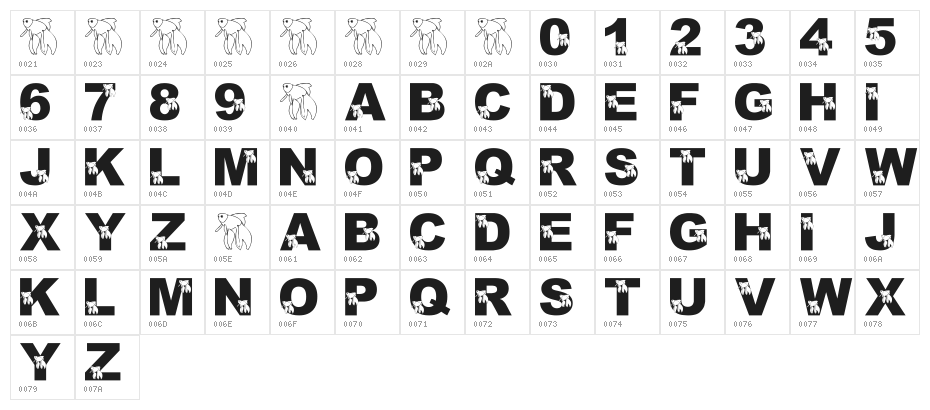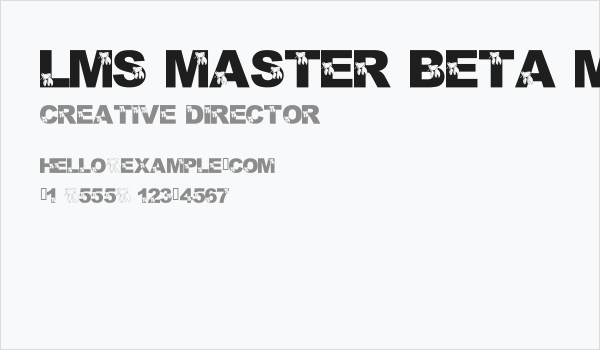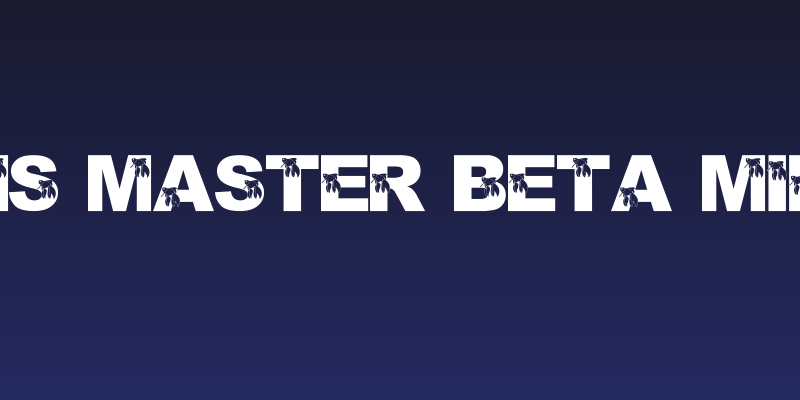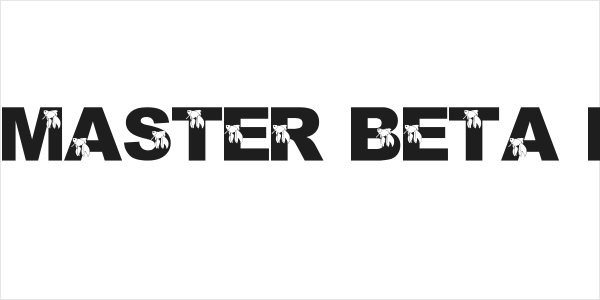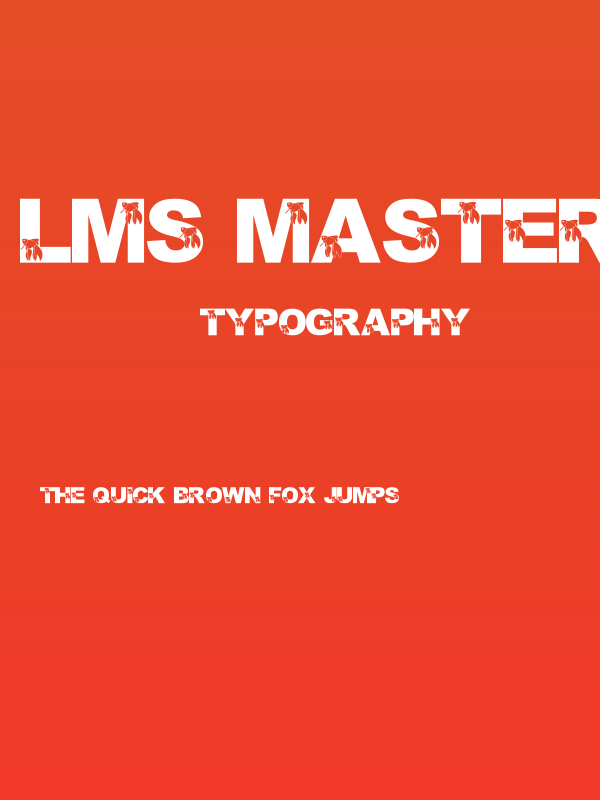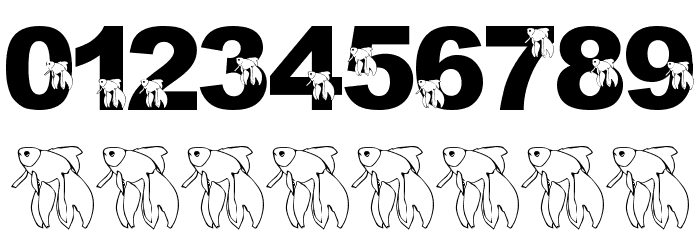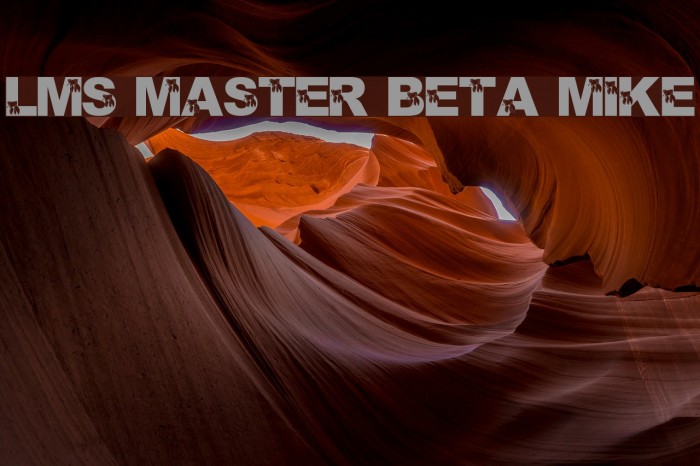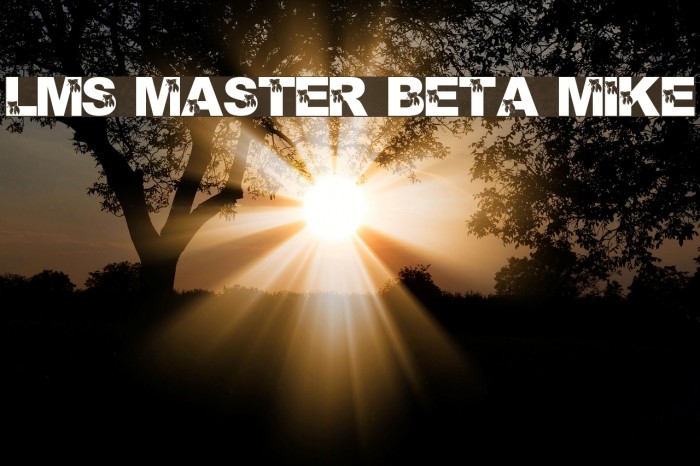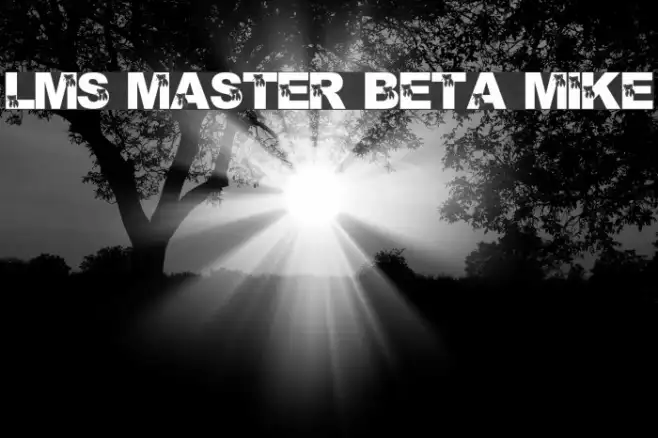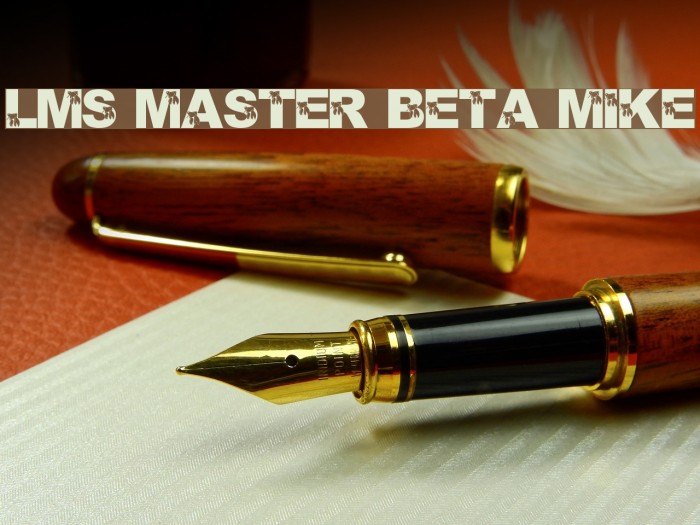
LMS Master Beta Mike Font
LMS Master Beta Mike Description
This font is a bold and playful decorative style featuring a unique design element where each character is integrated with a fish graphic. The letters and numbers are solid and bold, providing a strong visual impact. The fish motif adds a whimsical and fun touch, making it stand out for creative projects. The characters are evenly spaced, ensuring readability despite the decorative elements. This font is ideal for projects that require a distinctive and eye-catching look, such as children's books, playful branding, or aquatic-themed designs.
| Proposed Projects | Ideal for children's books, aquatic-themed designs, playful branding, and creative posters. |